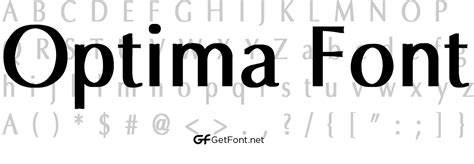
Berton sans serif font family pack (ttf, otf, woff) how cool is berton sans serif font? Web optima is also about as gregarious as a typeface can be. Optima bold font subfamily identification: Web optima bold font family. It mixes well with virtually any serif design and a surprisingly large number of sans serif faces. The optima family is available in six weights, from roman to extra black, each with an italic counterpart. You may also like fonts. Cyrillic fonts, latinic fonts, russian fonts. Web optima bold bold font family: Web optima bold font information.